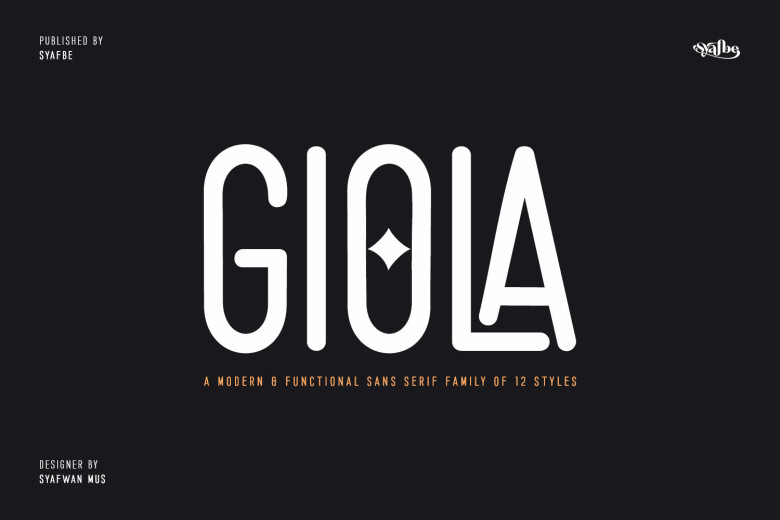
Giola Font
Giola is a modern and minimalist sans serif font. Whether you’re using it for crafting, digital designing, presentations or greeting cards making, it’s perfect! Giola is PUA encoded which means you can access all of the glyphs and swashes with ease!
Giola Sans Serif Font Family